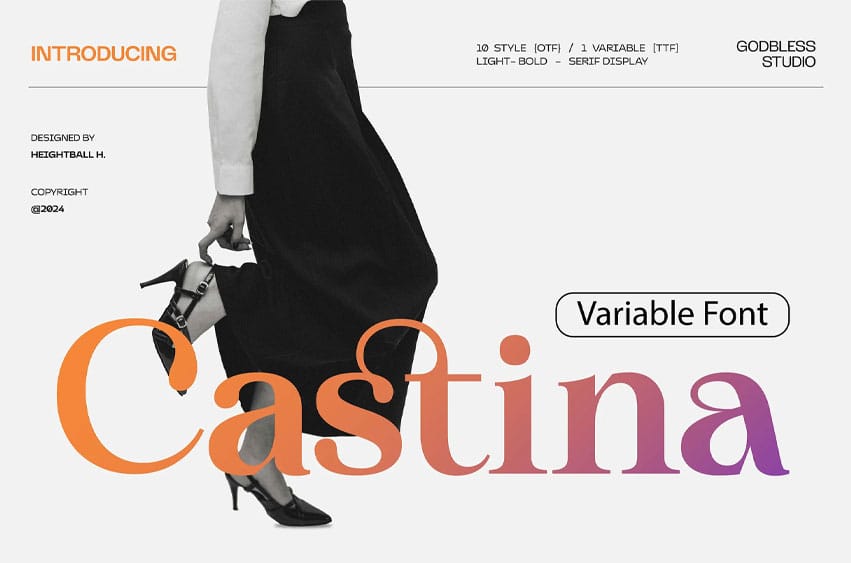
Castina Font serif Display, a sophisticated serif display font family designed to bring an air of elegance, style, and tranquility to your projects. With a range of five variable weights from Light to Bold, Castina adapts gracefully to any creative application, from editorial layouts to branding, advertising, and print media. Its versatile nature makes it perfect for magazine headlines, luxury packaging, posters, and web design, offering a refined yet approachable aesthetic. Whether you’re aiming for a timeless appeal or a contemporary touch, Castina delivers just the right balance of charm and readability, making it an essential choice for designers and publishers alike.
Distinctive Character: Castina features a refined and stylish design with smooth lines and dynamic shapes. Its modern yet timeless appearance makes it ideal for creating memorable and professional visual identities.
Versatile Application: Whether you’re working on branding, logo creation, magazine layouts, posters, book covers, or sublimation projects, Castina adapts seamlessly to all these contexts. Its flexibility ensures it fits perfectly into any design scheme.
Castina serif Display :